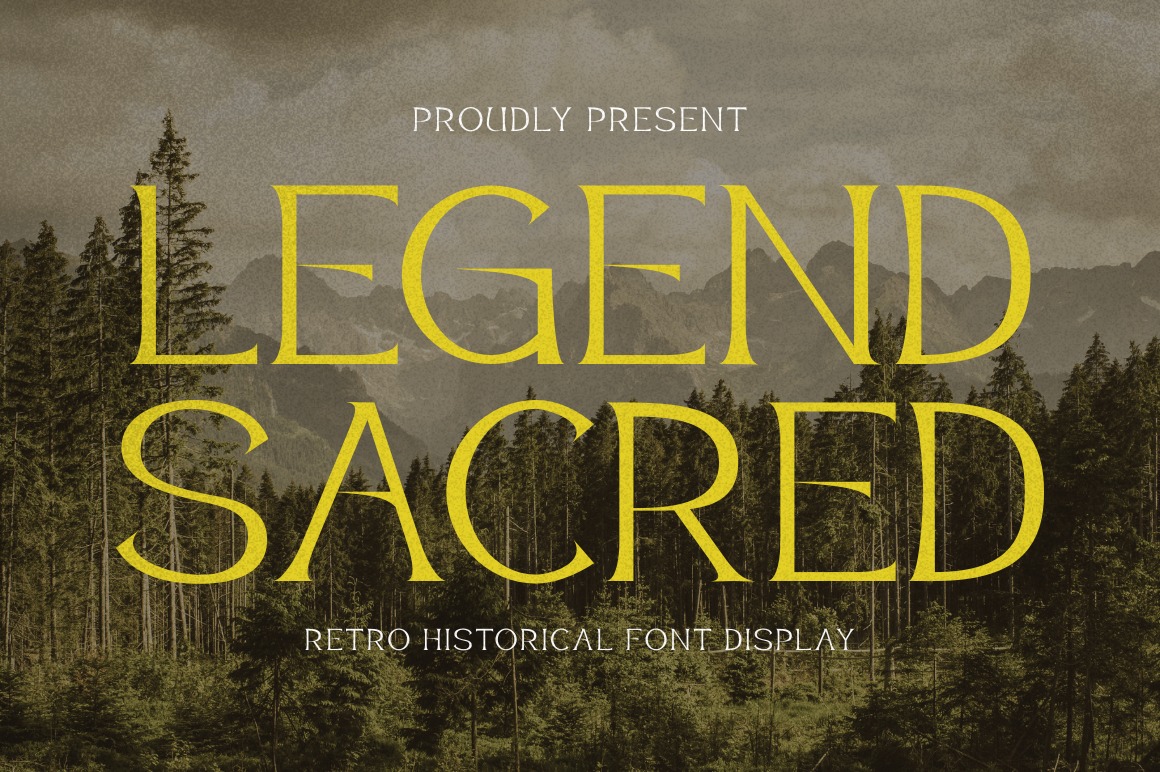
Legend Sacred Font
Legend Sacred Font is a professionally designed typeface that delivers clarity, structure, and consistent performance across various design applications. Legend Sacred is a retro historical serif font inspired by classic typography and timeless heritage aesthetics. Featuring strong serifs, refined details, and an old-world character, this font evokes a sense of history, tradition, and authority. Perfect for vintage branding, book covers, posters, editorial layouts, and designs that seek a sacred or legendary atmosphere, Legend Sacred brings elegance and depth while preserving excellent readability and classic charm.